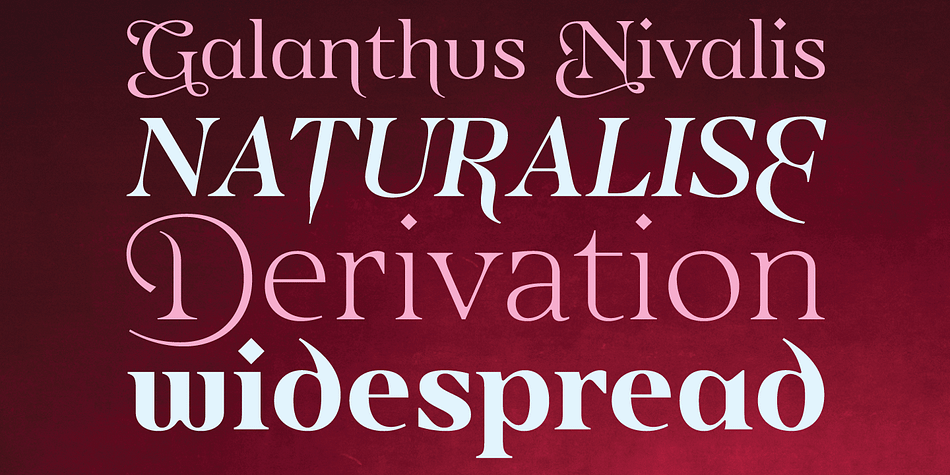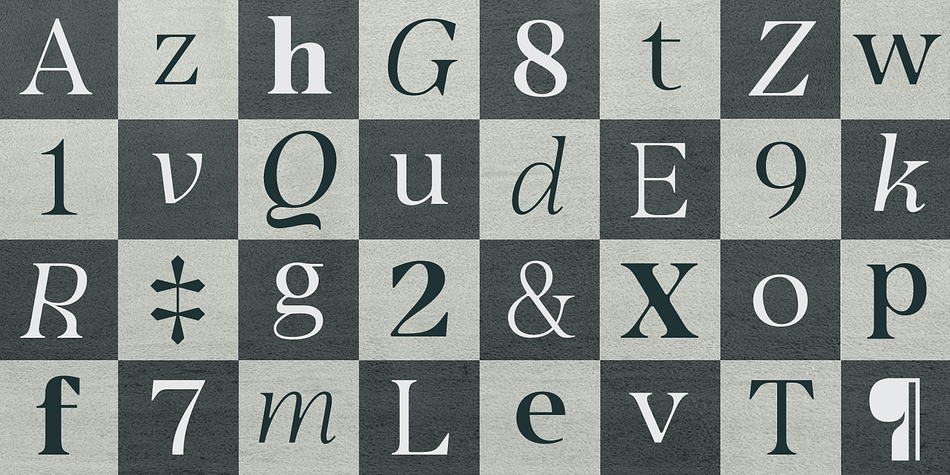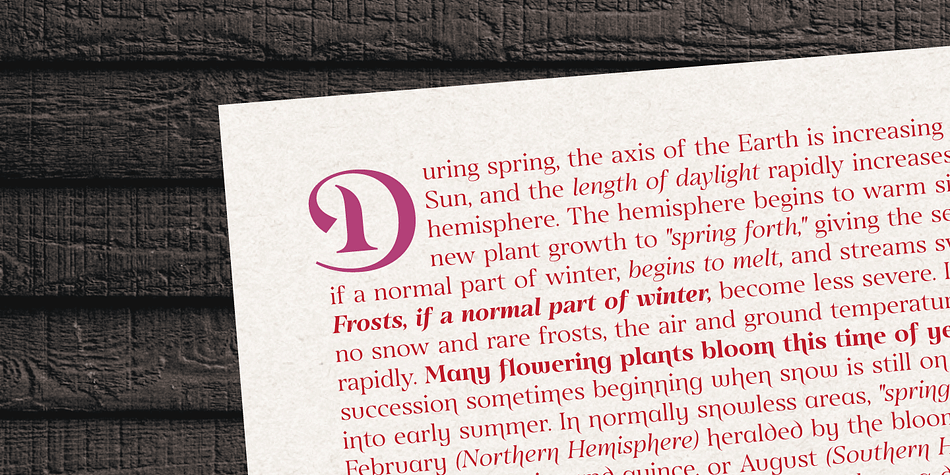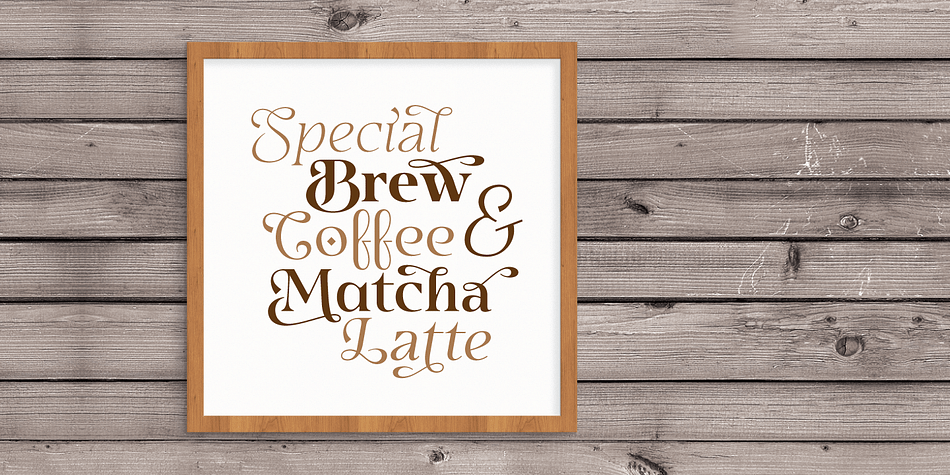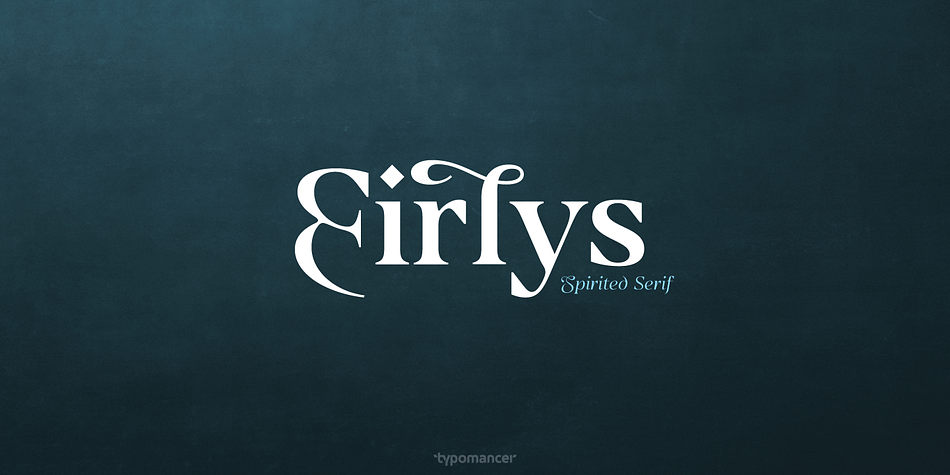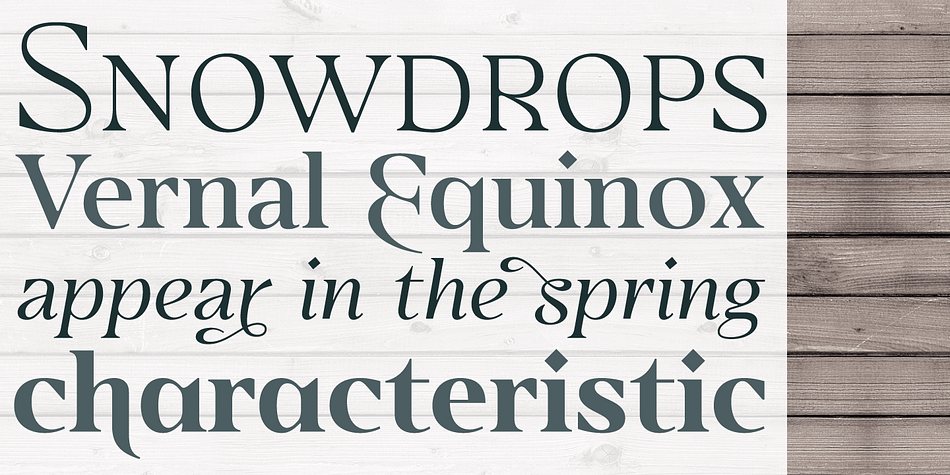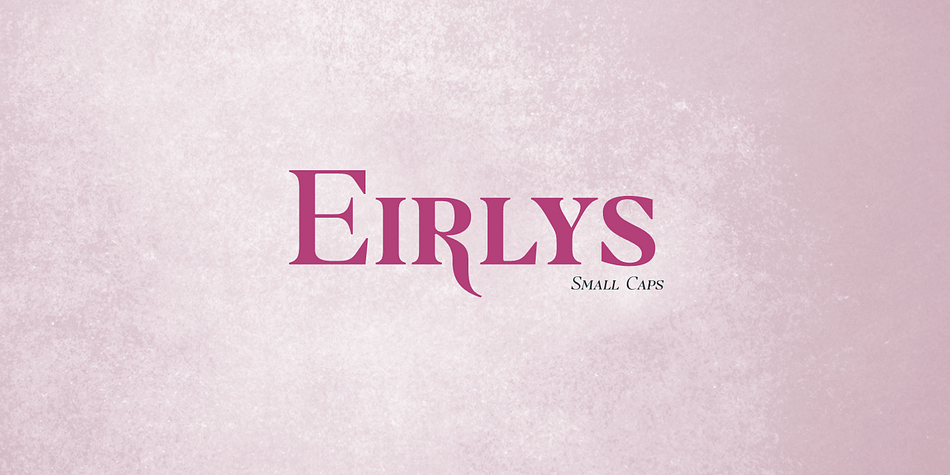
Designed by Warit Chaiyakul, Eirlys is a display serif and serif font family. This typeface has twenty-four styles and was published by Typomancer.
“Eirlys” a Gothic serif typeface with a touch of Celtic feeling. A combination of sharp serif and smooth joint gives a sweet & smart characteristic. Font comes with 4 weights: Light, Regular, SemiBold, Bold and suitable Italic, Especially Small Caps, Swash styles and a dozen of alternates for your own experiment.